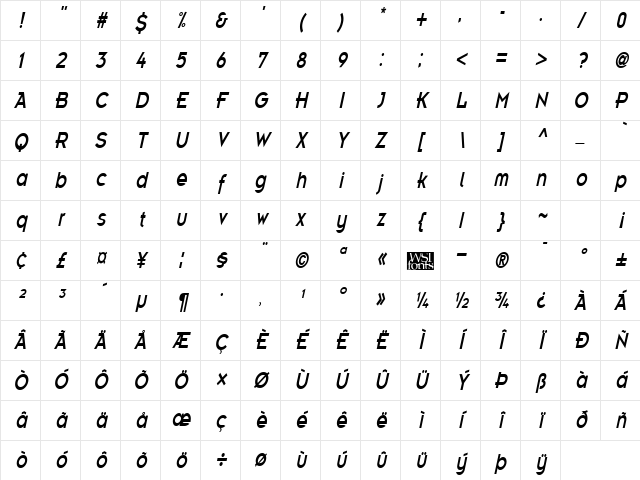
Complete EmblemCondensed kursiv glyph index. Displaying only characters natively supported by EmblemCondensed kursiv font.
EmblemCondensed is a composed and adaptable typeface that performs quietly and consistently across a wide range of design contexts. The slanted form adds forward momentum and visual energy. Its narrow stance lets it pack a punch even in space-constrained designs.